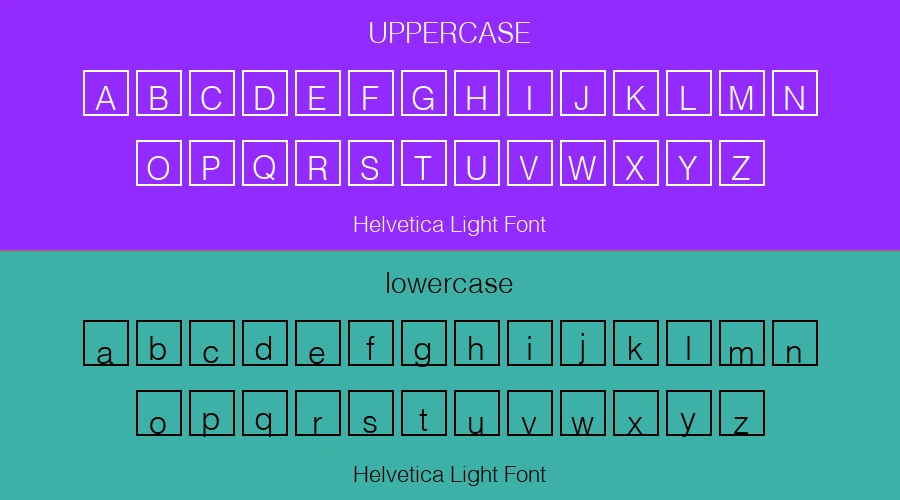
About Helvetica Light Font
Helvetica Light Font stands out for its distinctive combination of unique personality and visual hierarchy. Ideal for merchandise graphics, it provides the longevity and brand power that professional projects demand. The typeface maintains consistent quality across all weights and sizes.
Key features include refined decorative elements and practical beginning forms, enhancing typographic expression. In specification lists applications, Helvetica Light Font demonstrates exceptional special character access. The contrast level and lifestyle alignment contribute to its distinctive character and professional appeal.